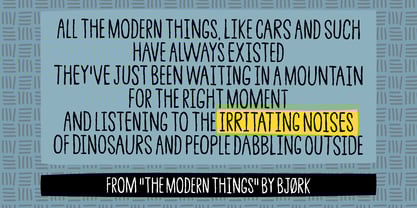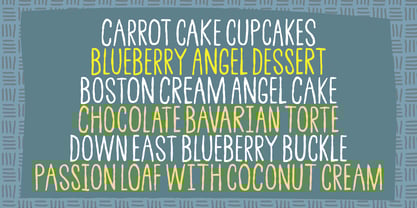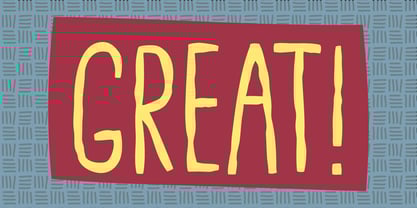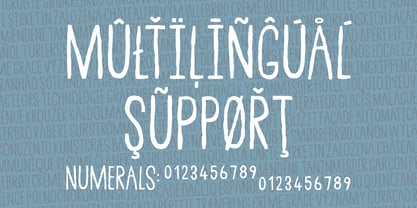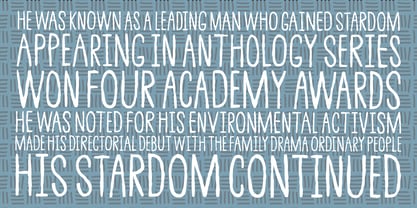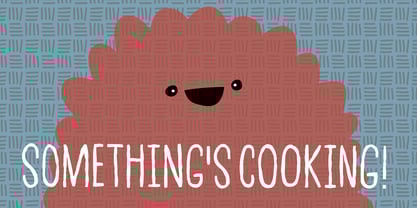
Irritating Noises
by Bogstav
The Irritating Noises Font Family was designed by Jakob Fischer and published by Bogstav. Irritating Noises contains 2 styles and family package options.
Need a clear, legible and handmade font? Need something brushy and organic too? Don't need anything too curly or wild? Then maybe my Irritating Noises could be your choice! It's handmade, organic looking and super legible, even at smaller sizes. I have added four slightly different versions of each letter - a clever way to make your text look even more authentic and lively! The font is named after a Bjørk song. I do like that song, but a funny fact is that I kinda hate irritating noises! :)
Bogstav.com was founded in september 2017 and is run by Jakob Fischer (who also runs pizzadude.dk) I concentrate on creating handmade quality fonts and my style is mostly organic looking, cartoonish or in some way influenced by grafitti. All fonts are created by me and comes straight out of Copenhagen, Denmark - just like Caroline Wozniacki, Viggo Mortensen, Mads Mikkelsen, Carlsberg and H.C. Andersen...and Carlsberg! :)